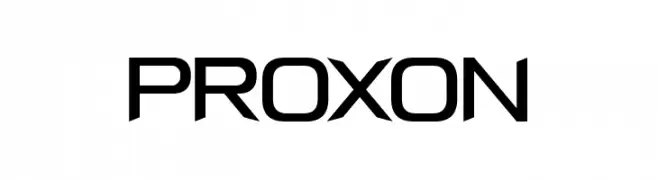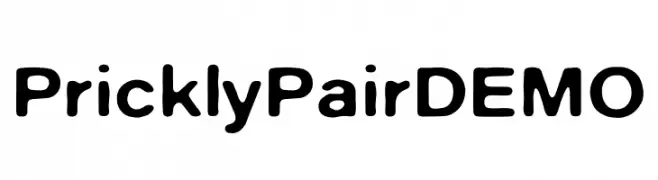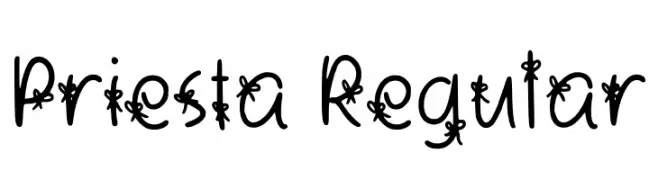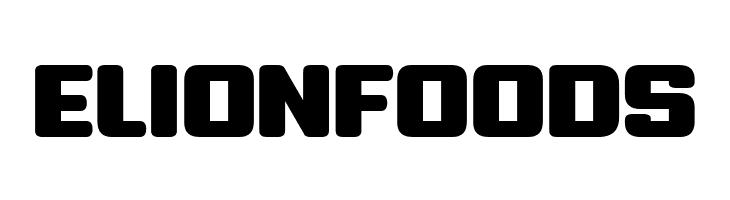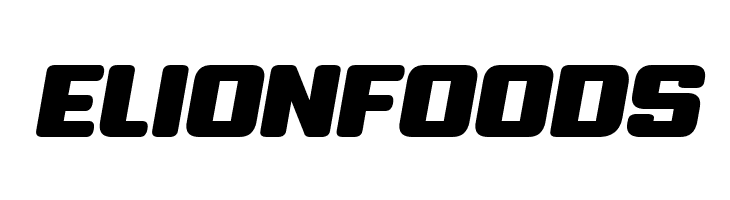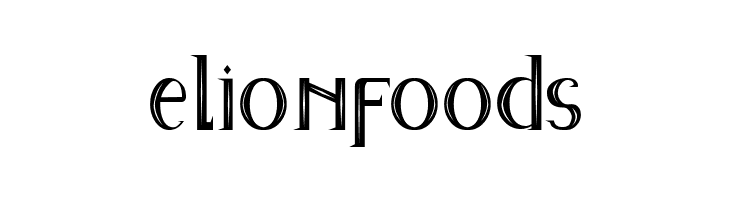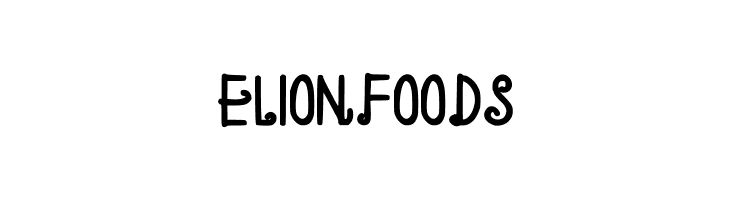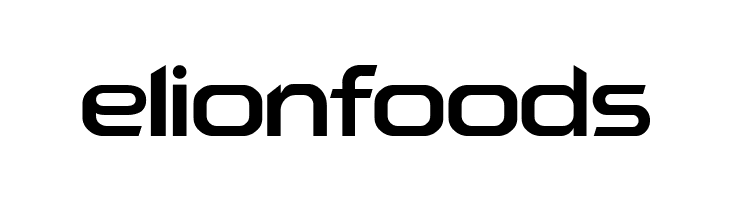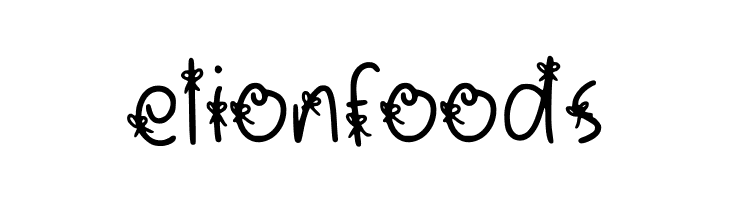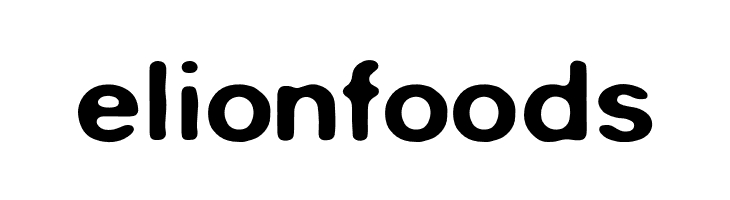
An elegant and flowing script font with a modern twist.
A playful and whimsical font with rounded, looped terminals and consistent stroke width.
A playful, rounded font with smooth curves and a friendly appearance.
A modern, clean typeface with subtle stroke contrast and excellent readability.
A playful, decorative font with star-like embellishments on each character.
A bold, italic font with rounded edges and a dynamic, modern style.
A bold, geometric font with rounded edges and a modern style.
A modern, angular font with a futuristic and geometric design.
A bold, art deco-inspired font with sharp, angular lines and high contrast.
A playful, bubbly font with eye-like details and rounded, bold characters.